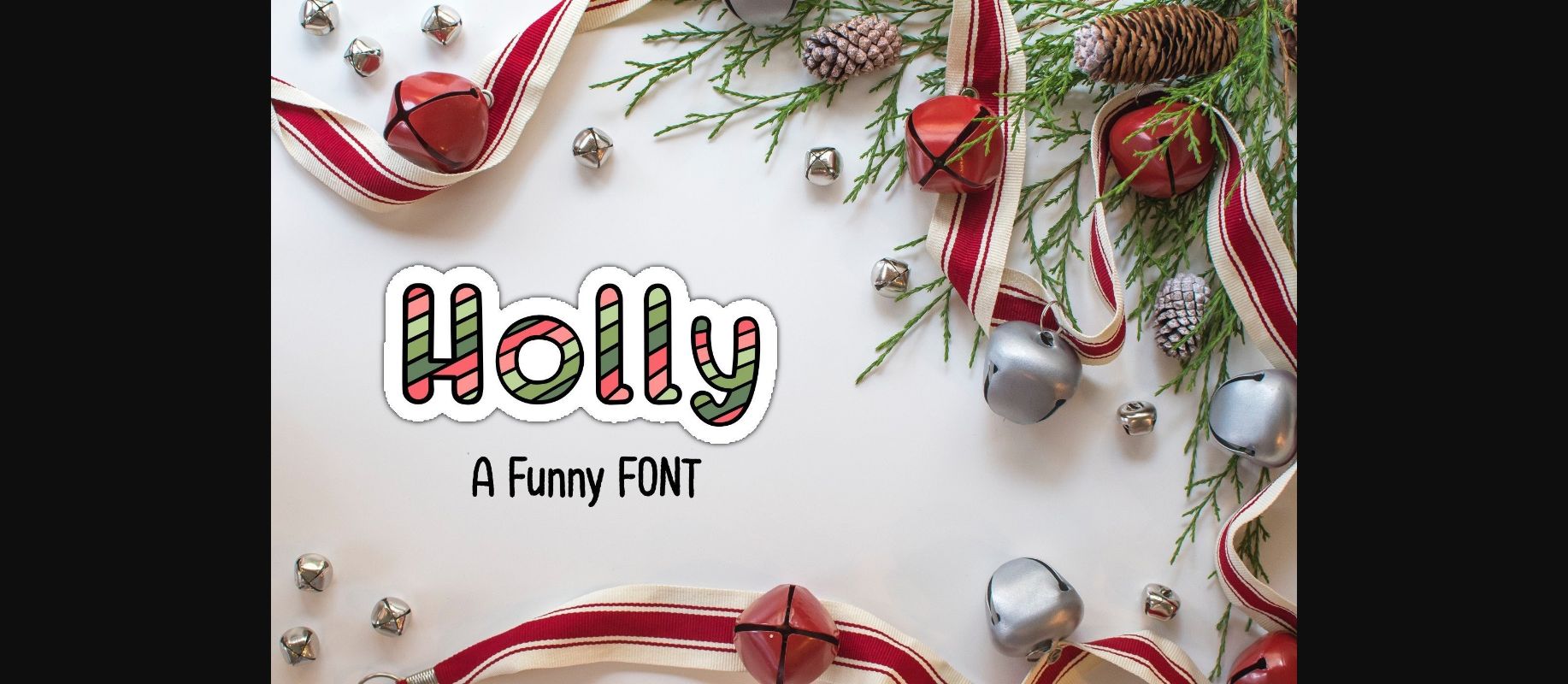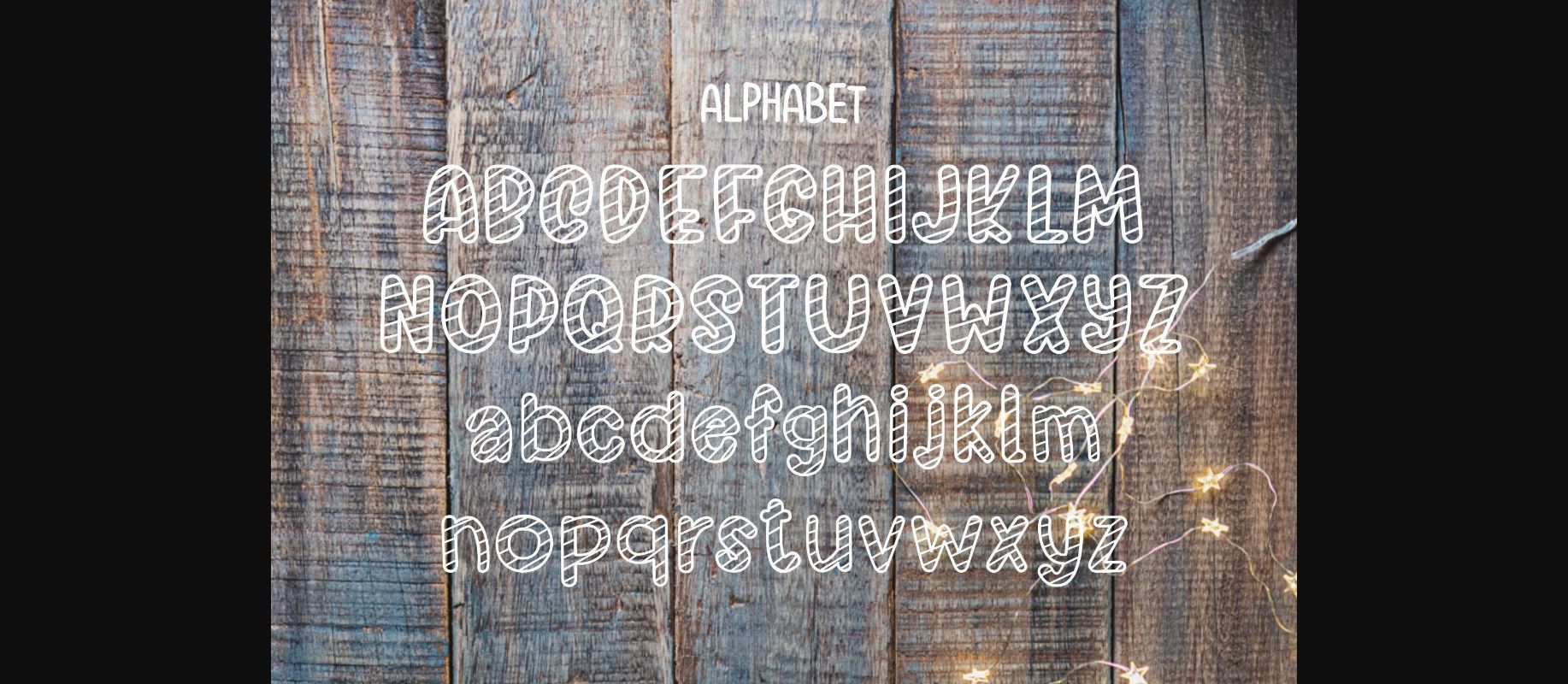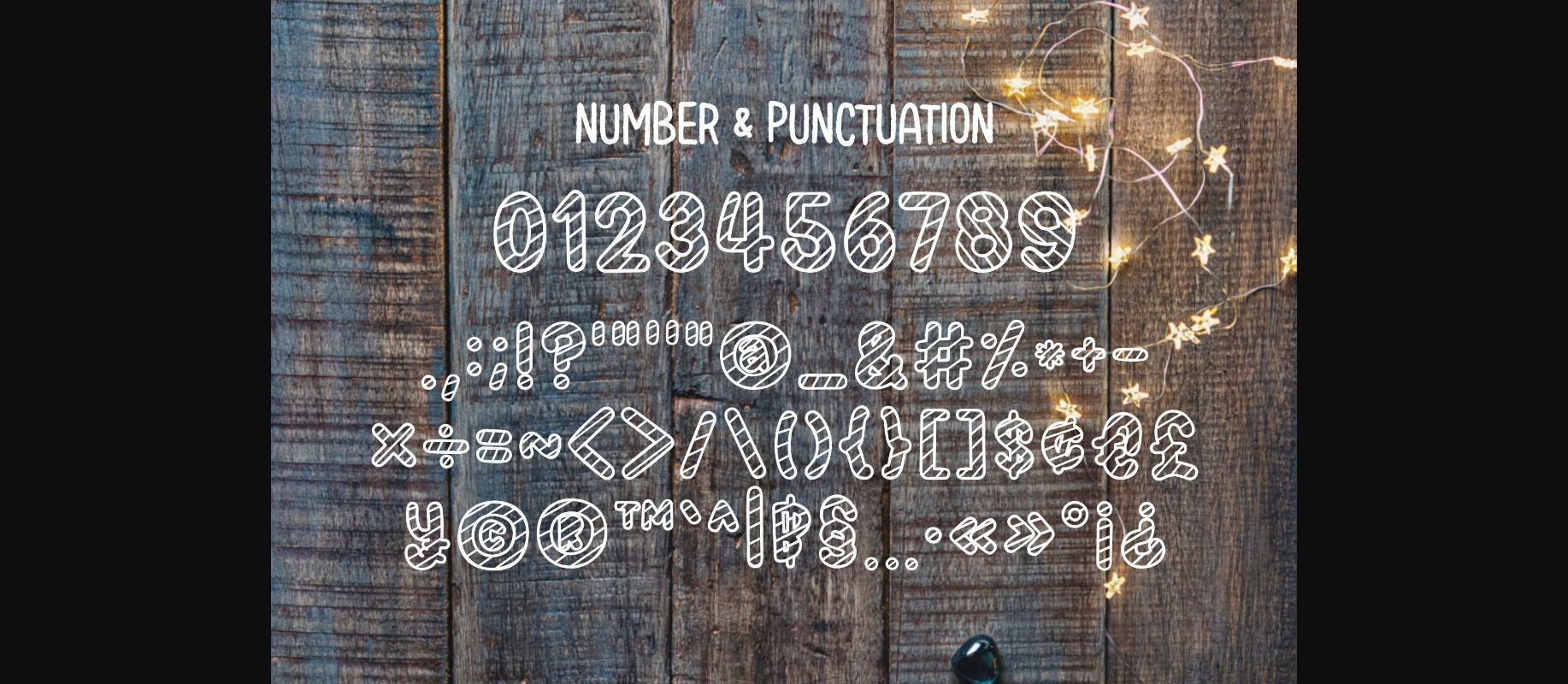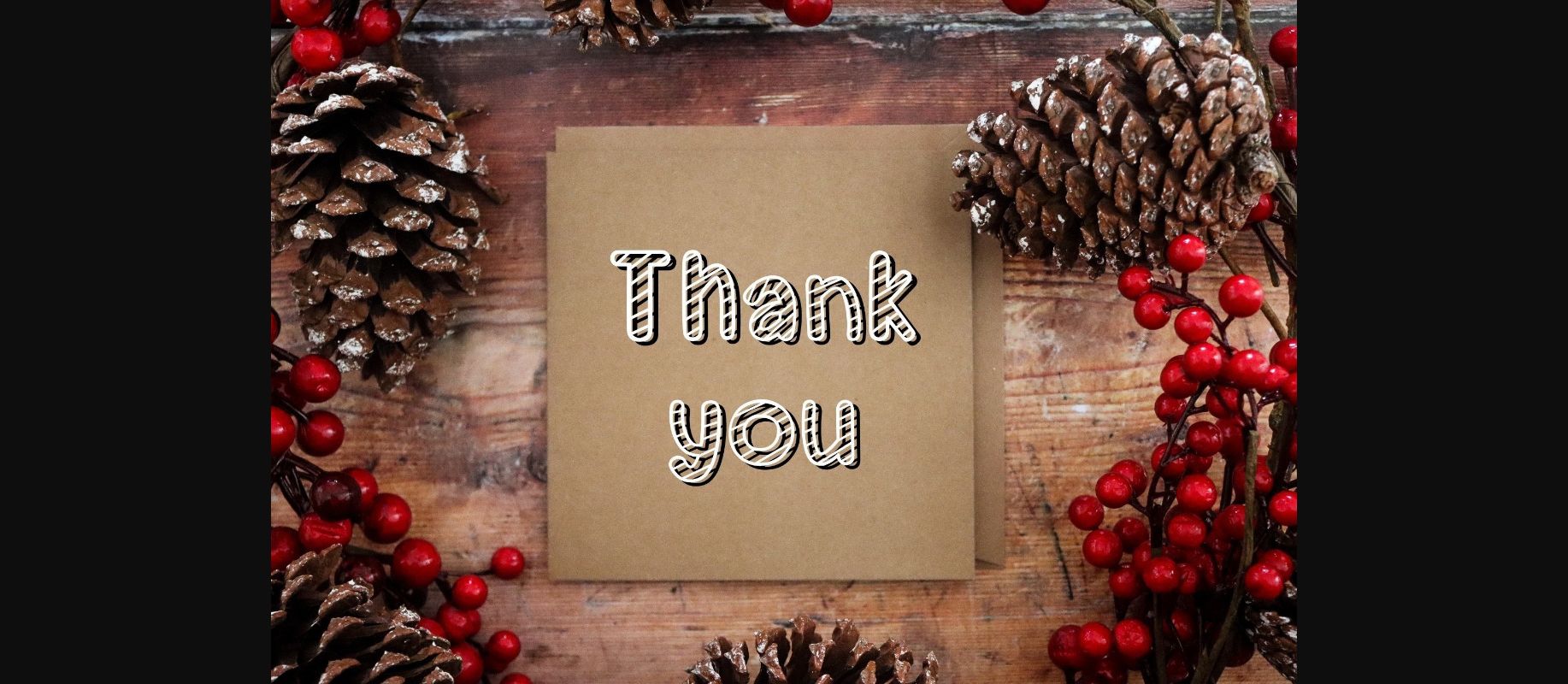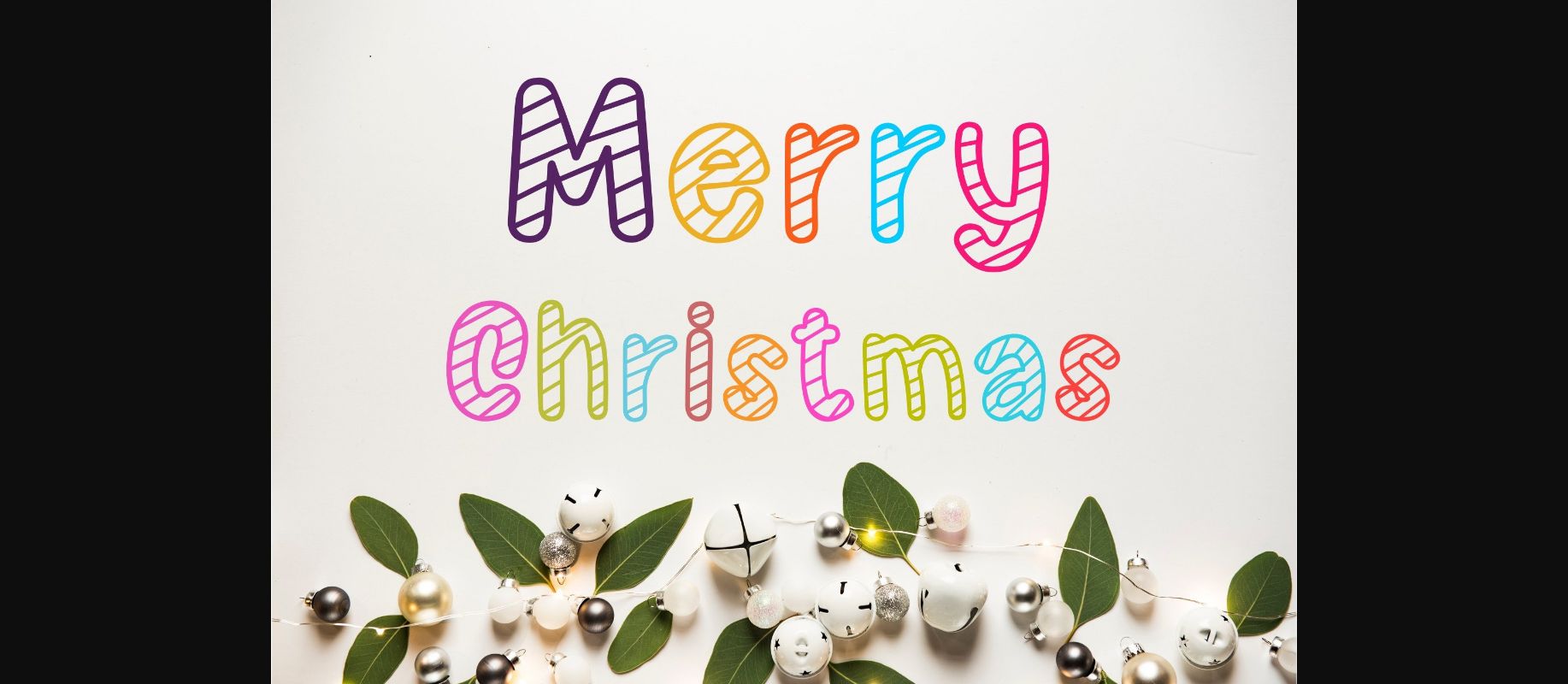
HomeDecorative FontsHolly Font Decorative Fonts Holly Font FacebookXPinterestWhatsApp 1 of 7 ... Holly Font Poster 2... Holly Font Poster 3... Holly Font Poster 4... Holly Font Poster 5... Holly Font Poster 6... Holly Font Poster 7... About Holly Font Holly is a Funny font. This font is the perfect fit for all of your logos, branding, social media, crafty DIY projects, and much more! DOWNLOAD NOW People also explored Lovely Garland Font Creative Vibes Font Baiskey Font Monday Font Boho Font SchussSlabProHeavy No.15 (1 Font) Font Beagle Sign Font Flower Font Quickly Font 313 0 TagsHollyHolly Font Previous articleAndrea FontNext articleTiger Font LEAVE A REPLY Cancel reply Comment: Please enter your comment! Name:* Please enter your name here Email:* You have entered an incorrect email address! Please enter your email address here Website: Save my name, email, and website in this browser for the next time I comment. Personal Use Free Fontmageddon Personal Use Free Read more about this font Calega Personal Use Free Read more about this font Ashay Personal Use Free Read more about this font Bruttney Personal Use Free Read more about this font BLOG To increase your work productivity, choose the most readable fonts. In today's fast-paced work environment, where digital communication and information consumption are integral to our daily routines, the choice of fonts can significantly impact... How to Cut Any Font on Cricut: Convert a Font to SVG (Free) Elegant Wedding Invitation Fonts – Handwritten & Script Fonts Where to Buy American Fonts Online in 2024